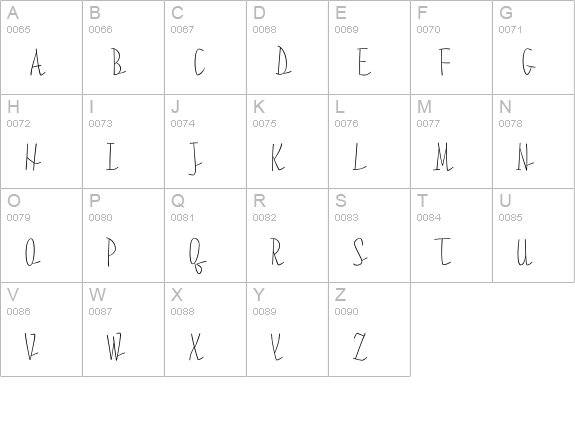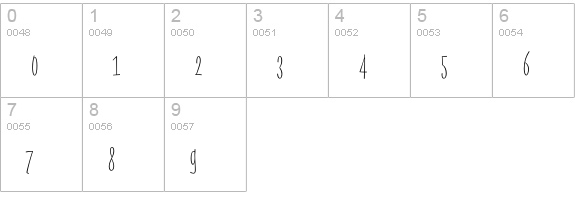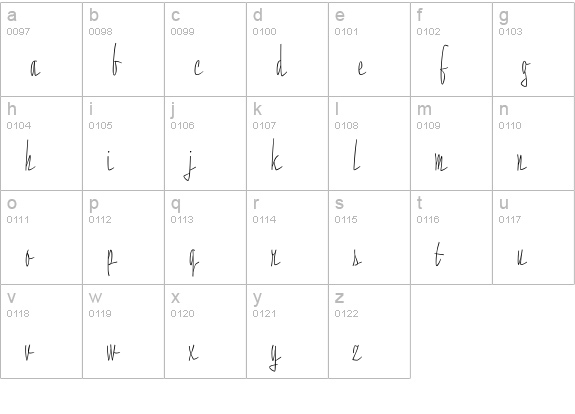
Razom Script Thin is a delicate, low-contrast variant in the Razom typeface family \xE2\x80\x94 well suited to fashion editorial, minimal branding, and high-contrast display.
Razom Script Thin font is a stunning and elegant typeface that exudes a sense of sophistication and modernity. The delicate and graceful strokes of this font make it perfect for adding a touch of refinement to any project. Its thin and stylish appearance gives off a sense of luxury and class, making it ideal for use in branding, invitations, logos, and more. The best part about Razom Script Thin font is that it is available for free download at FontsMarket.com. This means that you can easily access this beautiful font and incorporate it into your design projects without any cost. With its clean lines and contemporary look, Razom Script Thin font is sure to elevate the visual appeal of any creative endeavor.